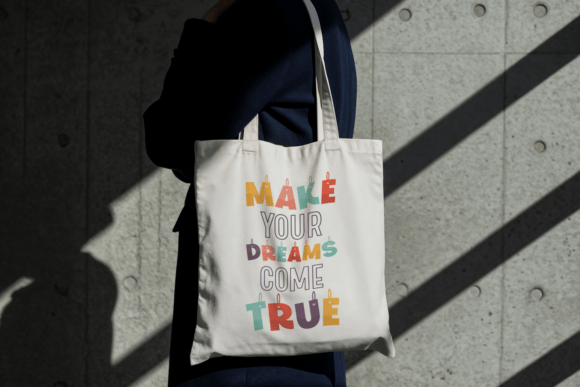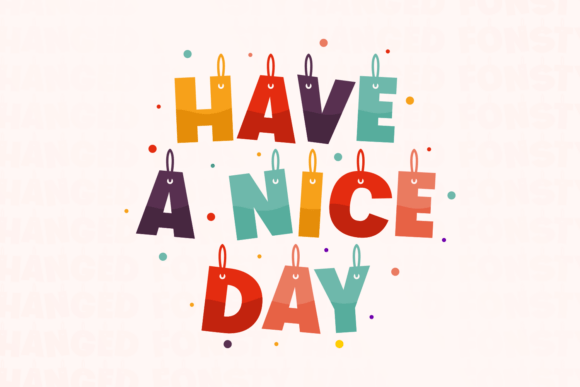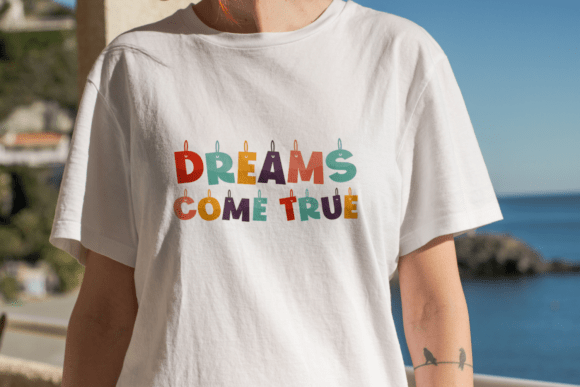
Introduction to Hanged Fonsty Font
Hanged Fonsty is a highly thematic and playful display font designed for immediate retail and marketing impact.
This unique decorative font features massive, blocky letterforms that are creatively integrated into hanging tag silhouettes Each character is rendered with a heavy silhouette, a stable vertical axis, and a subtle glossy reflection to create a sense of customized 3D depth.